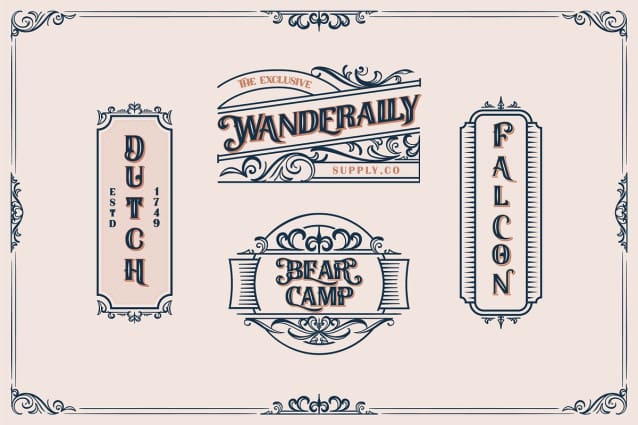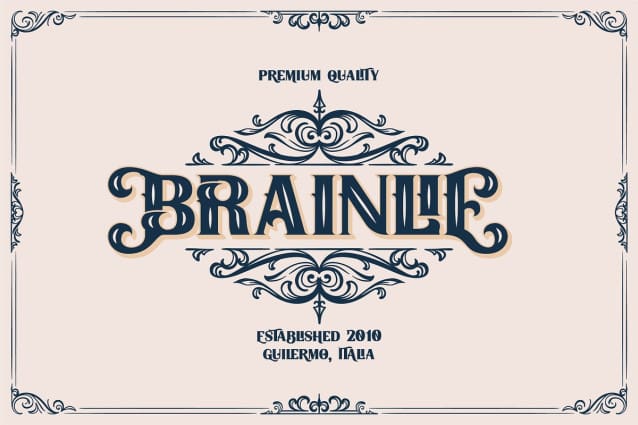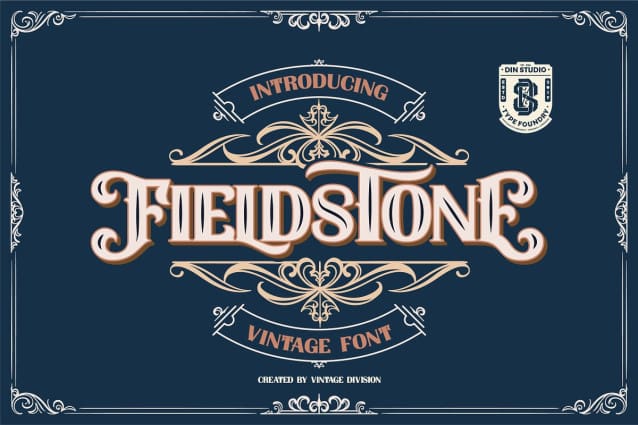
Fieldstone Vintage Font
Fieldstone Vintage Font, is an amazing display font. The font is suitable for any project like branding, lettering, t-shirt print and many others.